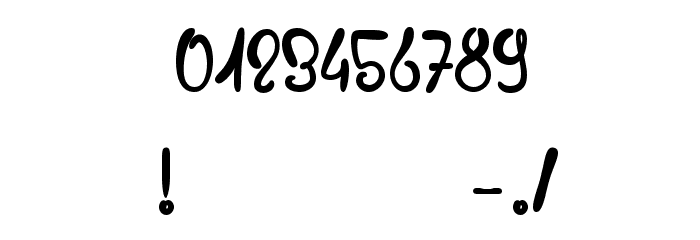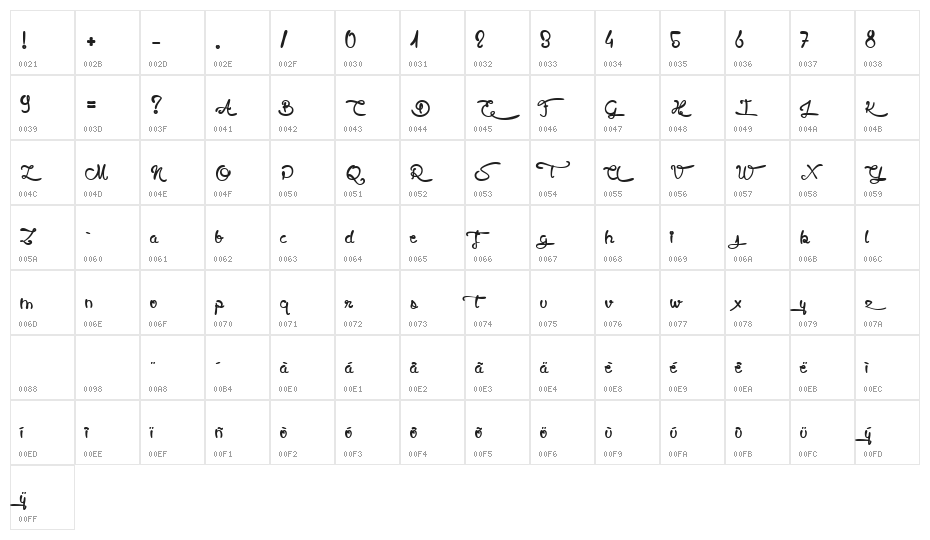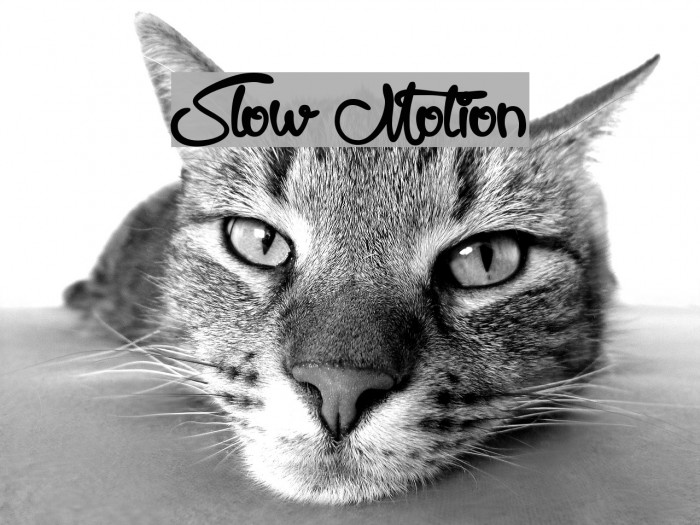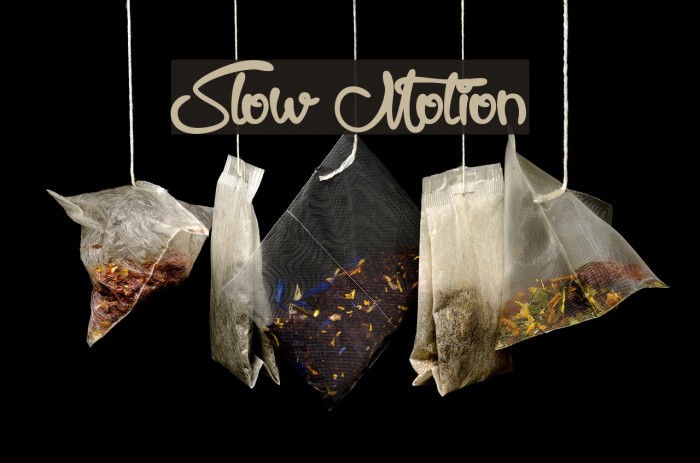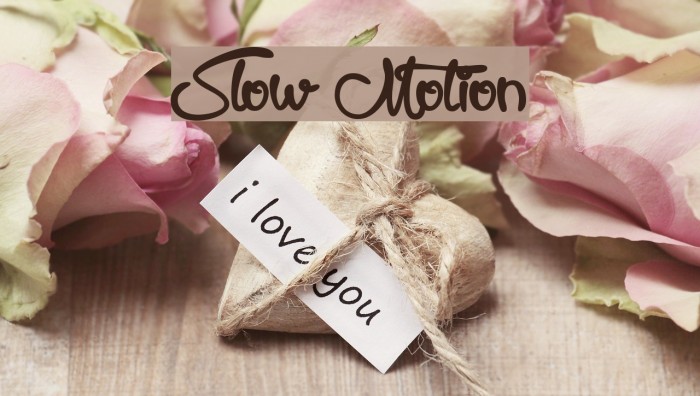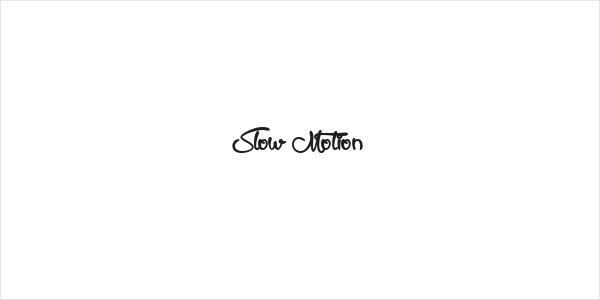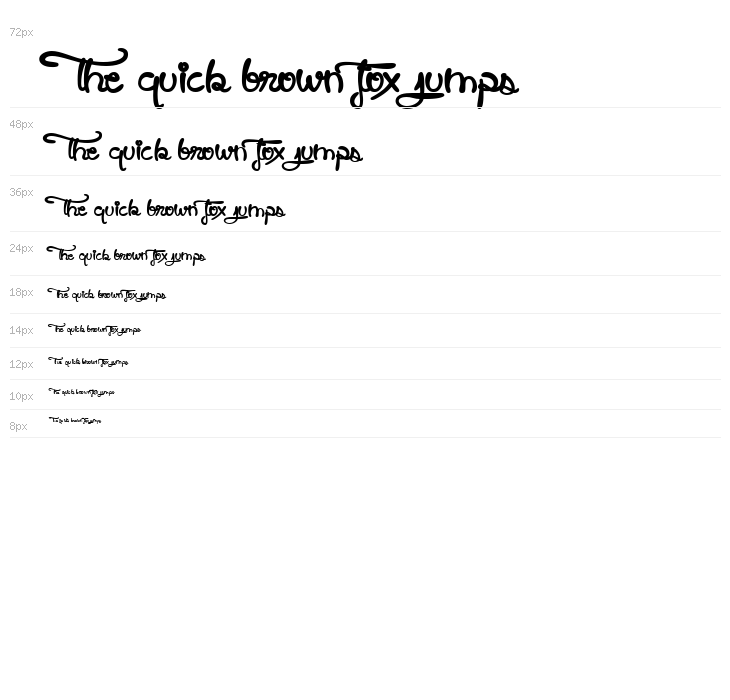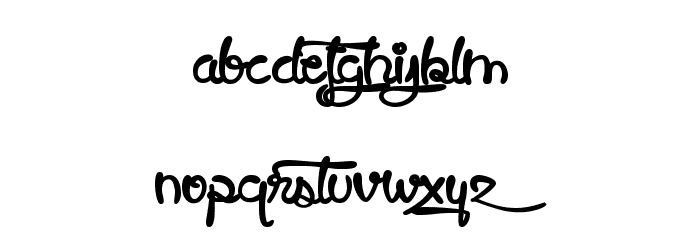
Slow Motion Font
This font exhibits a playful and artistic script style, characterized by its flowing, interconnected letters that mimic the fluidity of handwriting. The uppercase letters are ornate, with exaggerated loops and swirls, adding a whimsical touch. The lowercase letters maintain a consistent, cursive flow, enhancing readability while preserving the artistic flair. Numbers are bold and slightly rounded, complementing the overall design. Special characters are creatively integrated, maintaining the font's cohesive aesthetic. The font's unique style makes it suitable for projects that require a personal, creative touch.